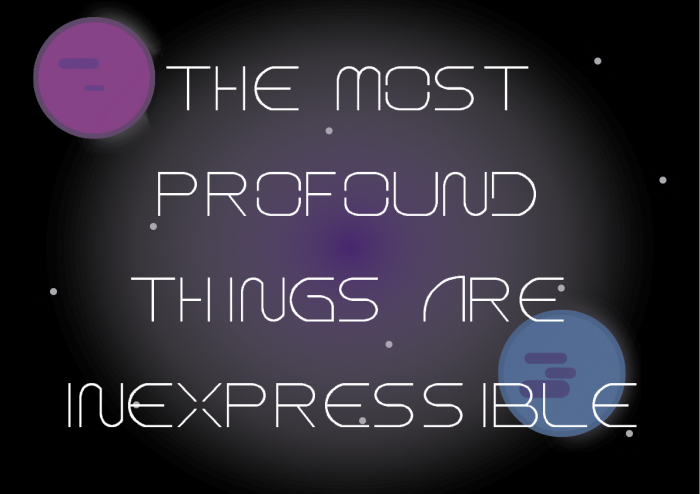
• The font TOREN takes its name from a sentient spaceship in the “Ancillary” series by Ann Leckie and is designed as a futuristic display font. Much of the inspiration for this font came from studying science-fiction film posters and book covers which is where the name originated. Important information to know about the font is it is only uppercase and works best as a stand-alone graphic element.
TORENby CharlieBass